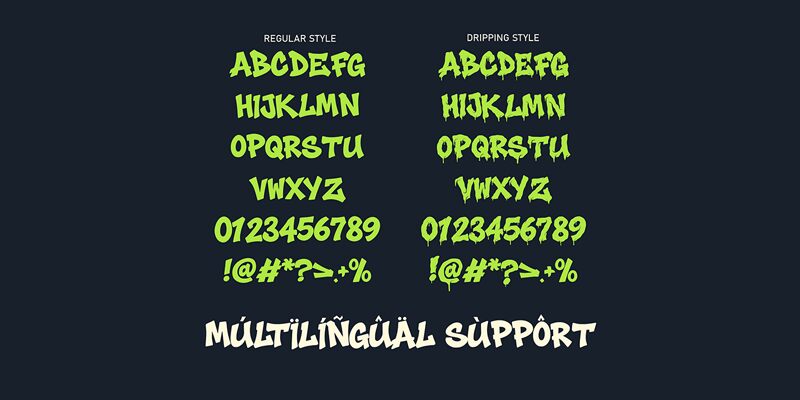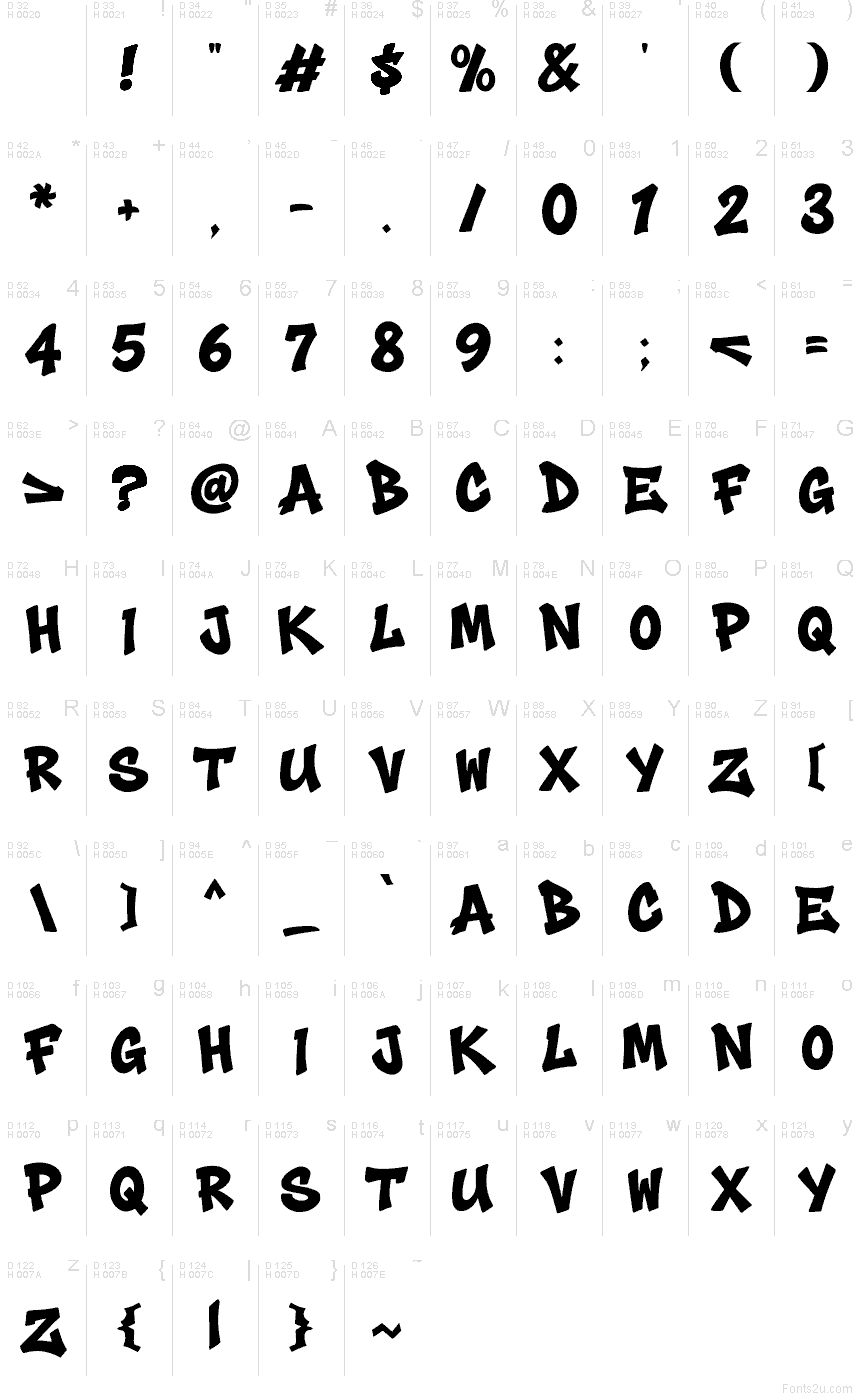
Grime Slime
Grime Slime font by Saepul Milah of Figuree Studio is a free graffiti font with chunky, inky shapes that feel like wet paint pushed fast across a wall. Its bouncy, uneven rhythm and swollen curves give every word a gooey “drip” energy—messy in the best way, yet still bold enough to read at a glance.
Using Grime Slime, you’ll get instant attitude on streetwear logos, skate posters, gaming thumbnails, Halloween promos, comic covers, album art, and sticker packs. Keep it large for maximum splatter impact, and pair this free font with a clean condensed sans for supporting text so the slime stays the star.